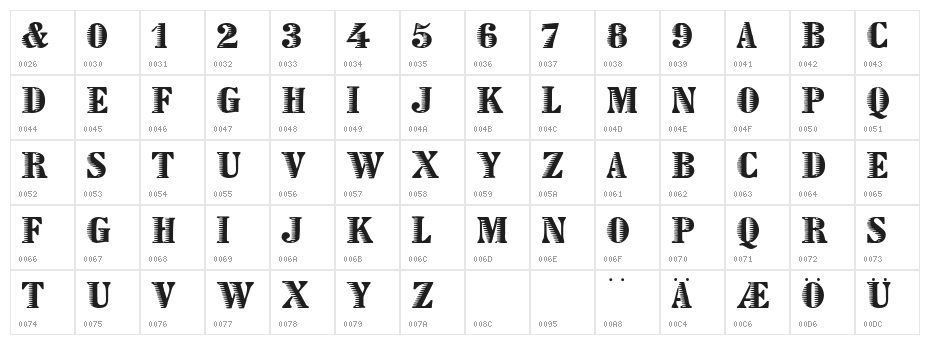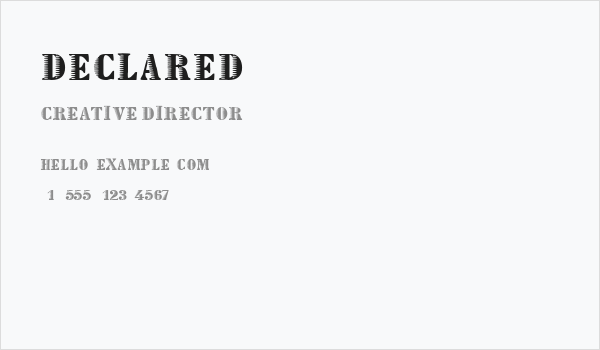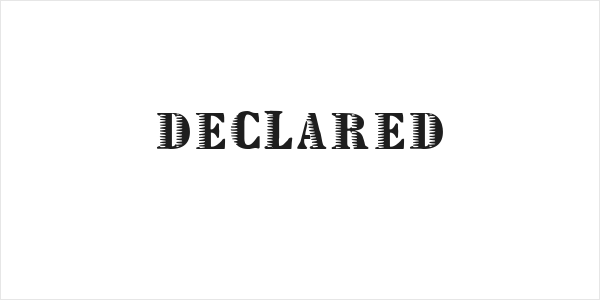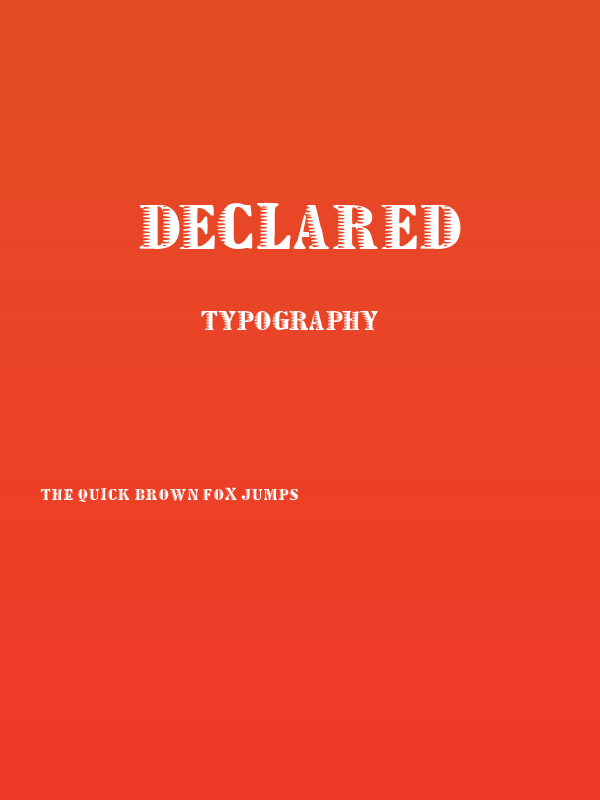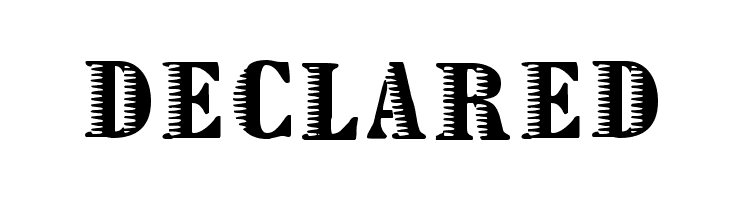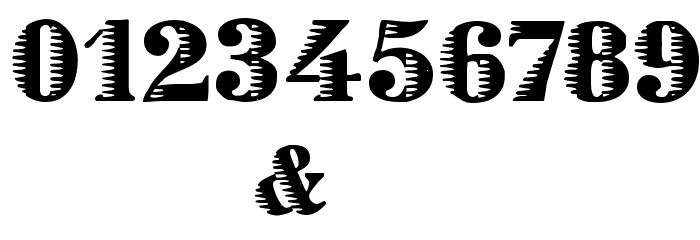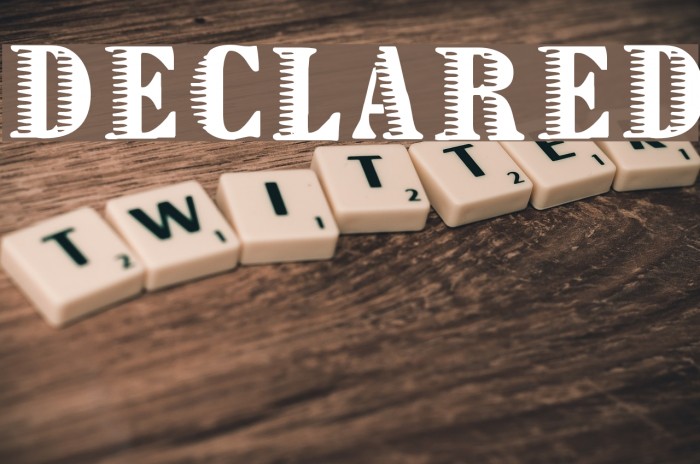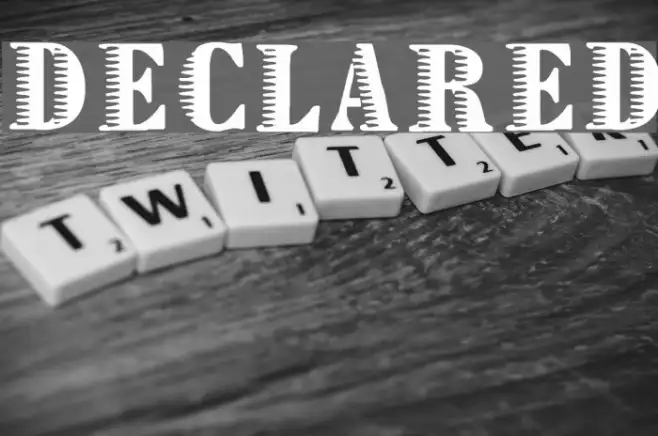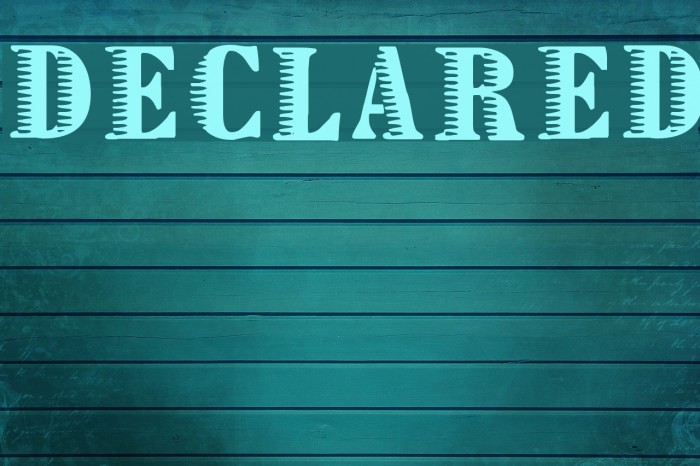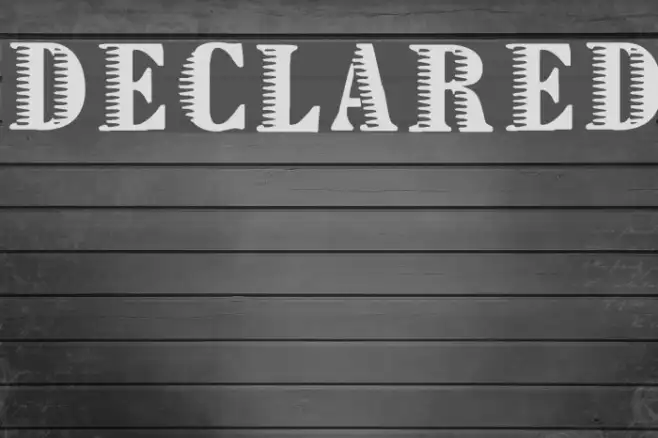
Declared Font
Declared Description
This font features a bold and decorative style with a distinct shadow effect that gives it a three-dimensional appearance. The characters are uppercase with a strong presence, making them ideal for attention-grabbing designs. The shadowing is consistent across all letters and numbers, adding depth and a unique visual interest. The font maintains a classic serif structure, with each letter having pronounced serifs that enhance its traditional feel. The overall design is reminiscent of vintage poster typography, combining boldness with intricate detailing.
| Proposed Projects | This font is perfect for vintage-themed posters, book covers, branding projects, and any design that requires a bold, eye-catching typeface. |